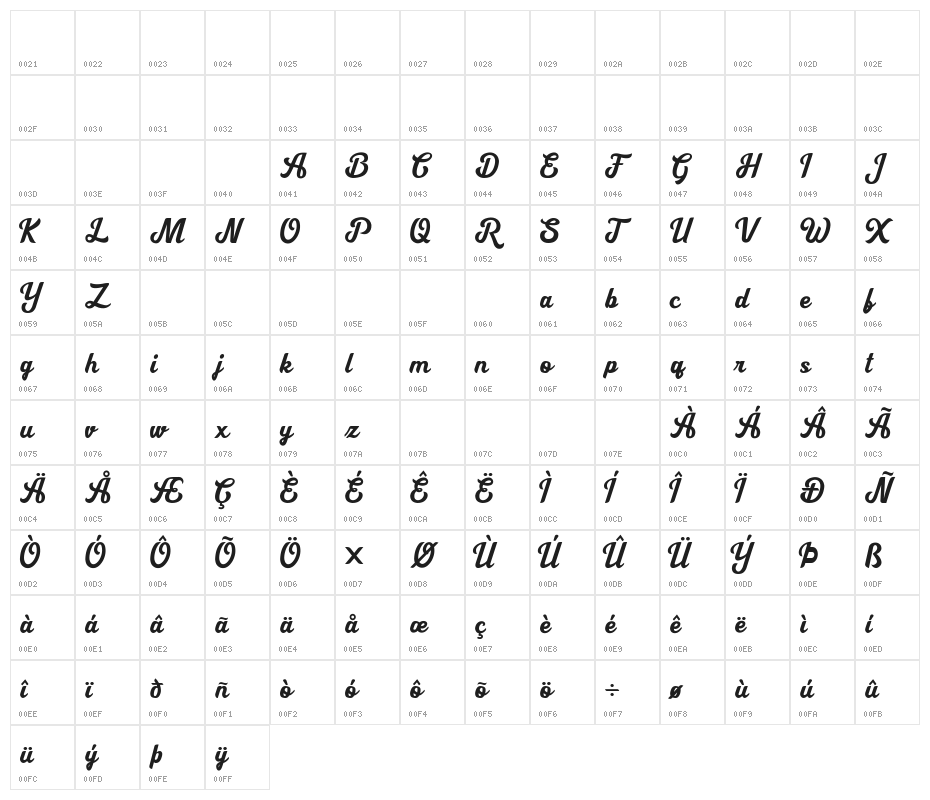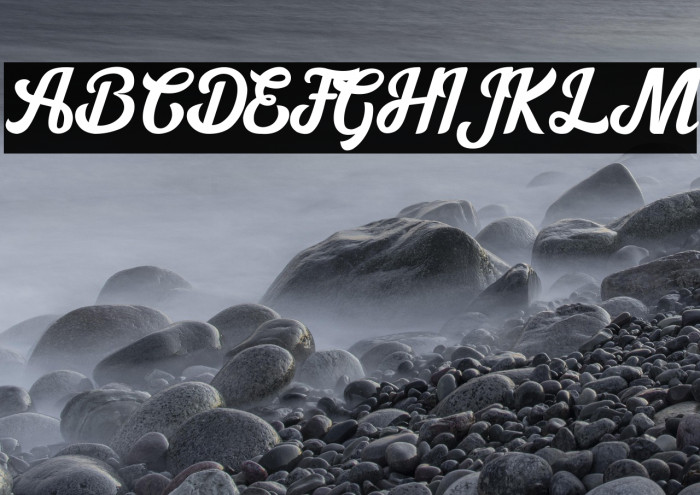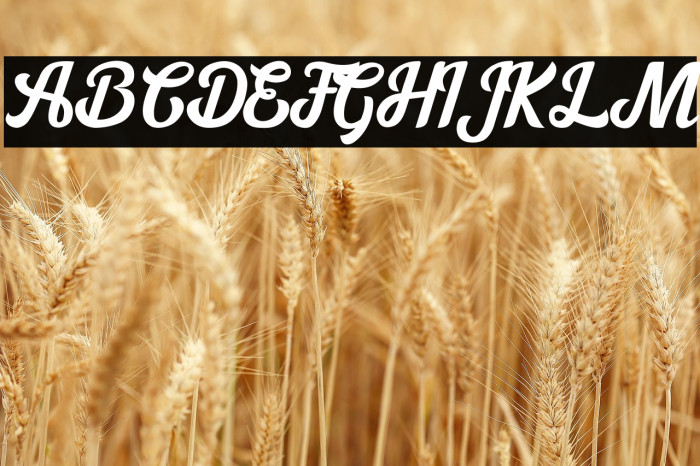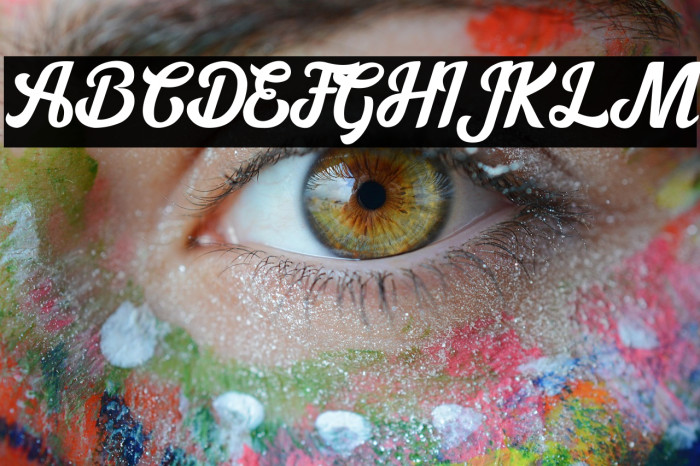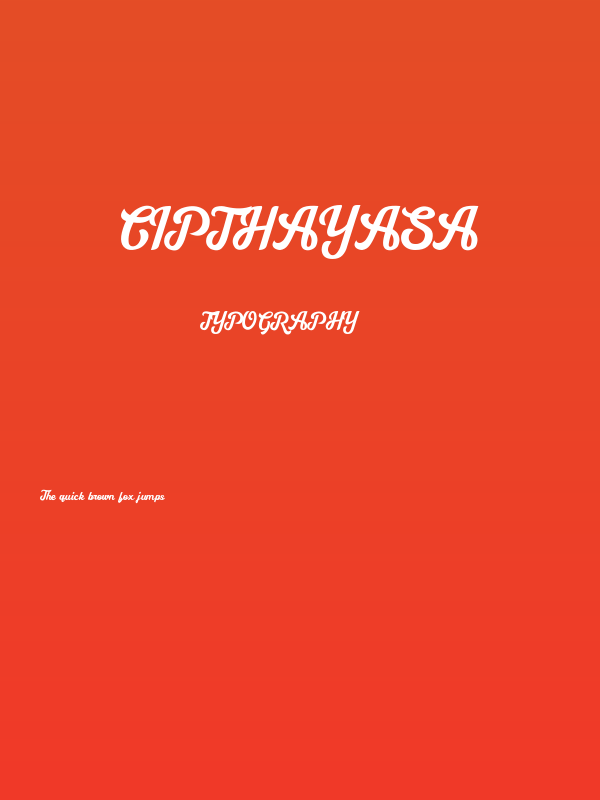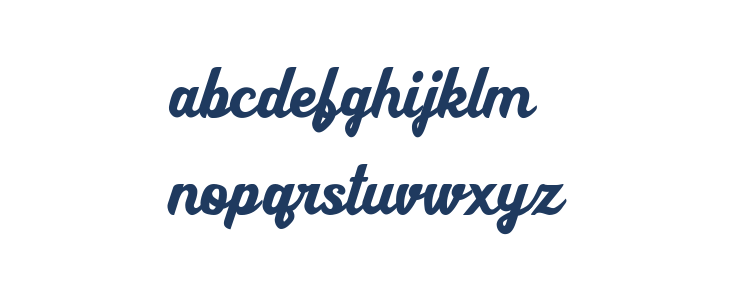
Cipthayasa Font
Cipthayasa Description
This font exhibits a bold and flowing script style, characterized by its elegant and cursive letterforms. The uppercase letters are prominently designed with smooth curves and a consistent stroke width, giving them a graceful appearance. The lowercase letters maintain the same fluidity, with some letters featuring distinctive loops and swashes that enhance the overall aesthetic. The numbers and special characters are crafted to match the script's style, ensuring a cohesive look across all glyphs. This font is ideal for projects that require a touch of sophistication and elegance.
Overall StyleElegant
Use CaseLogos, Invitations, Decorative text
Proposed ProjectsIdeal for wedding invitations, branding, greeting cards, and elegant signage.